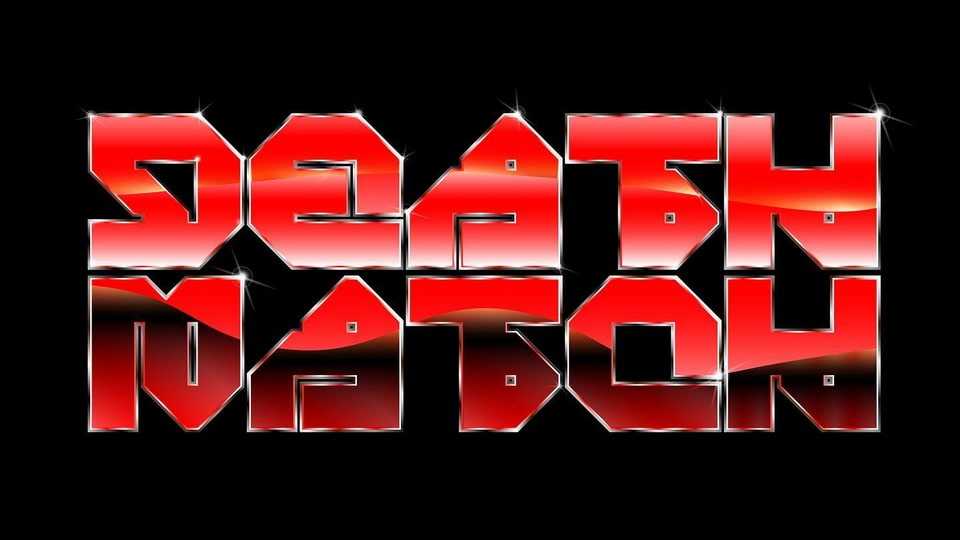
Download Transom Hoog font, a bold and distinctive typeface that transcends conventional boundaries with its creative and geometric letterforms. The font is featuring bold blocks and modular elements that form a visually striking and unique typographic experience.
Designer: Charles G. Brown